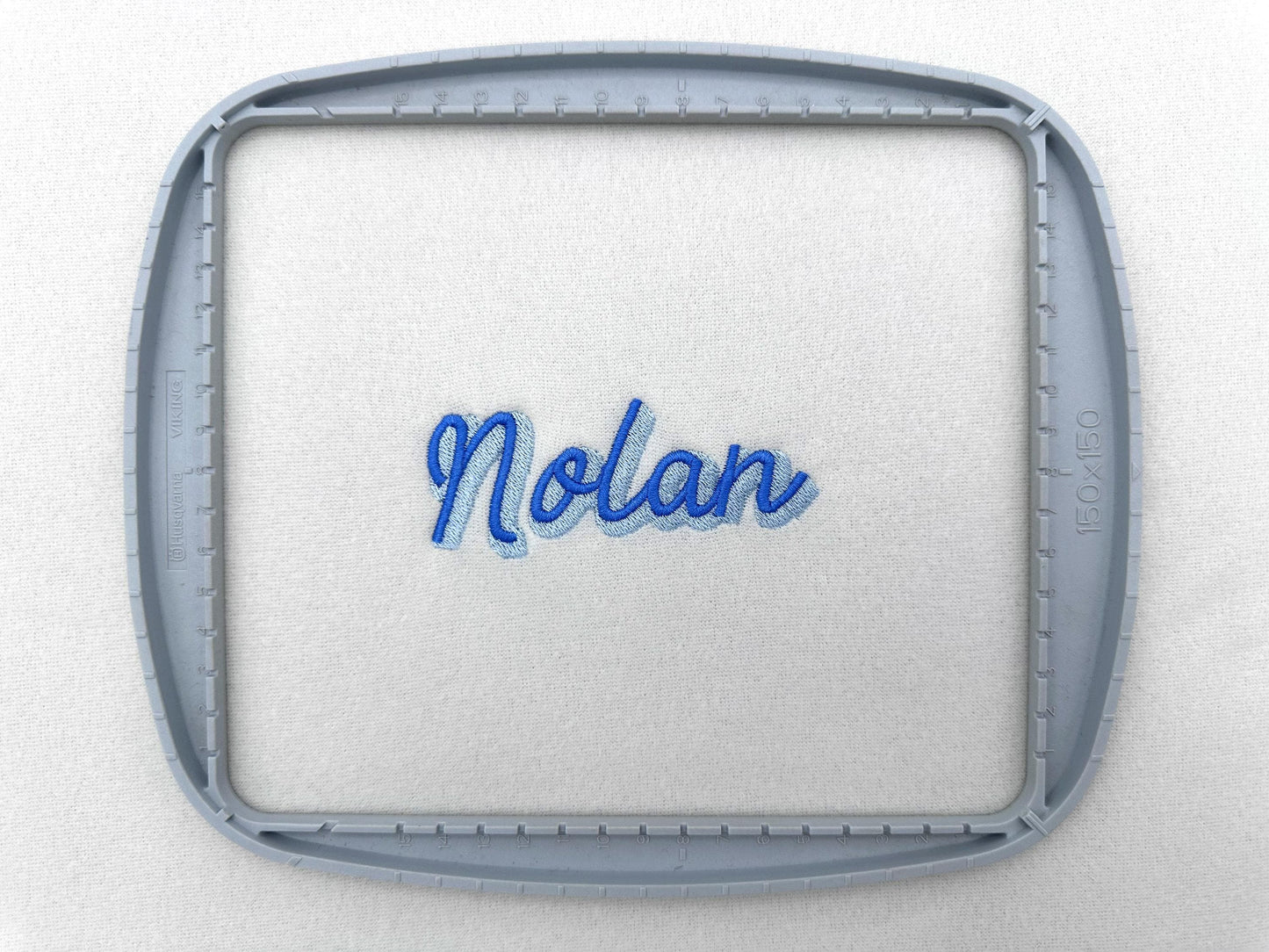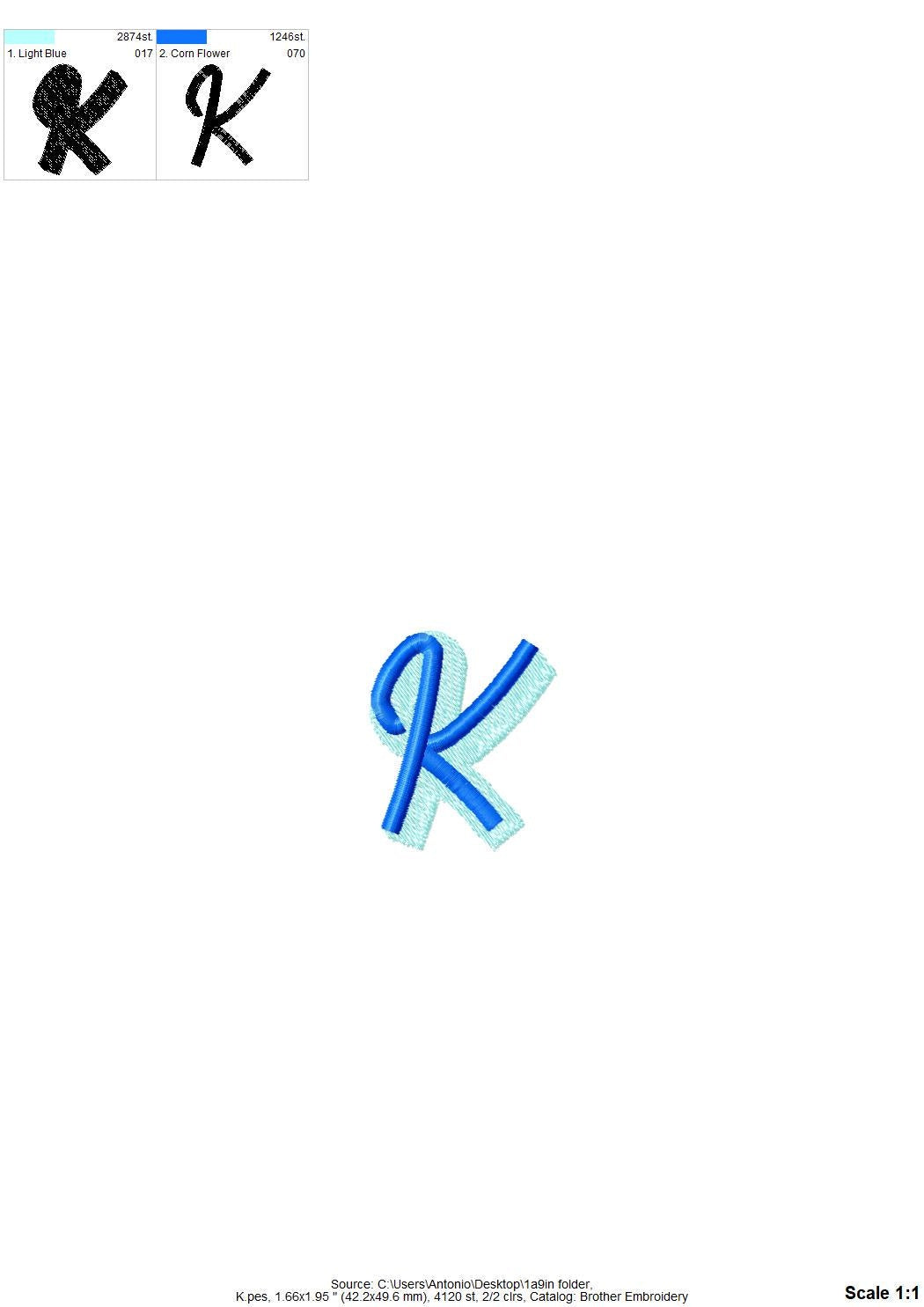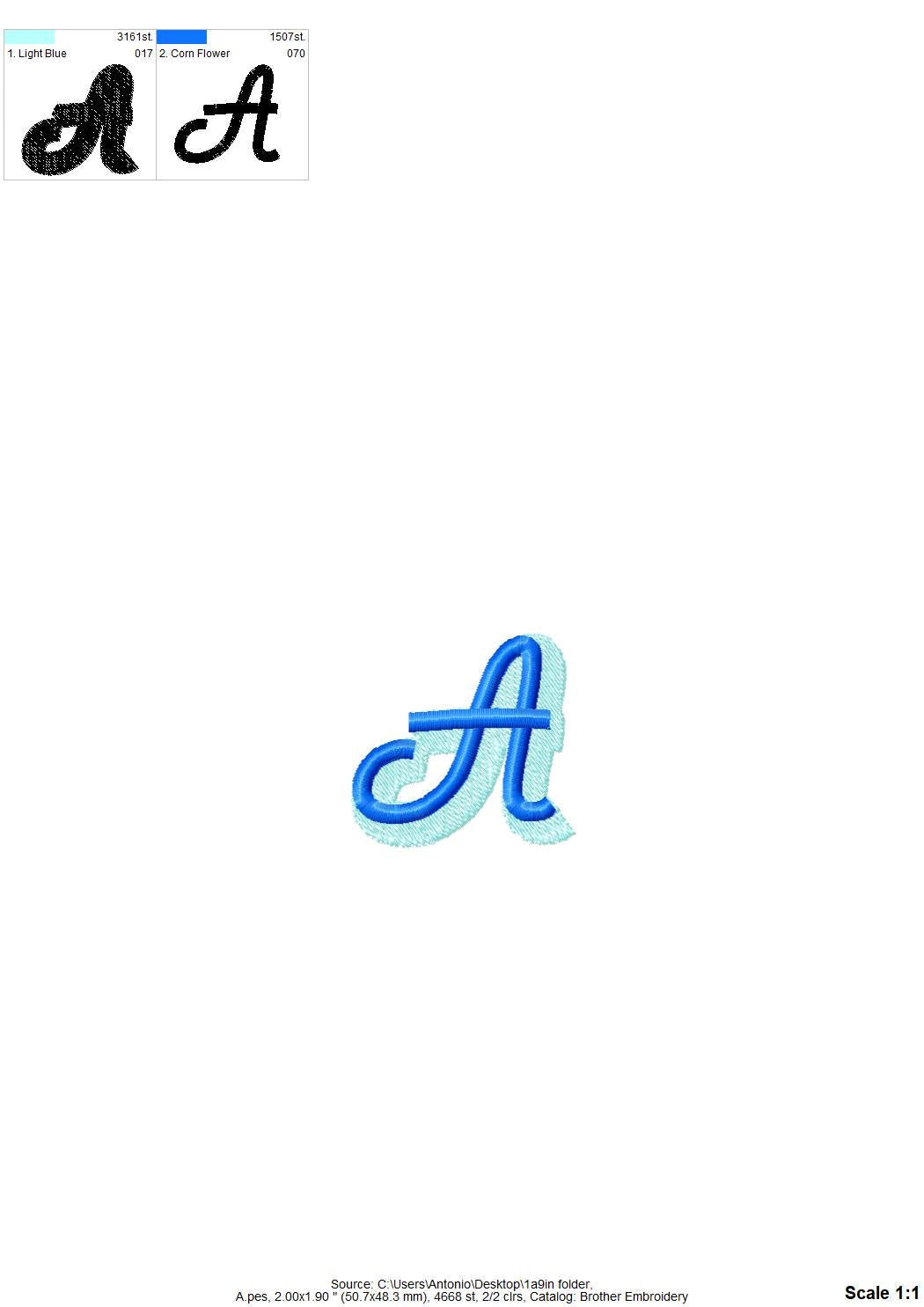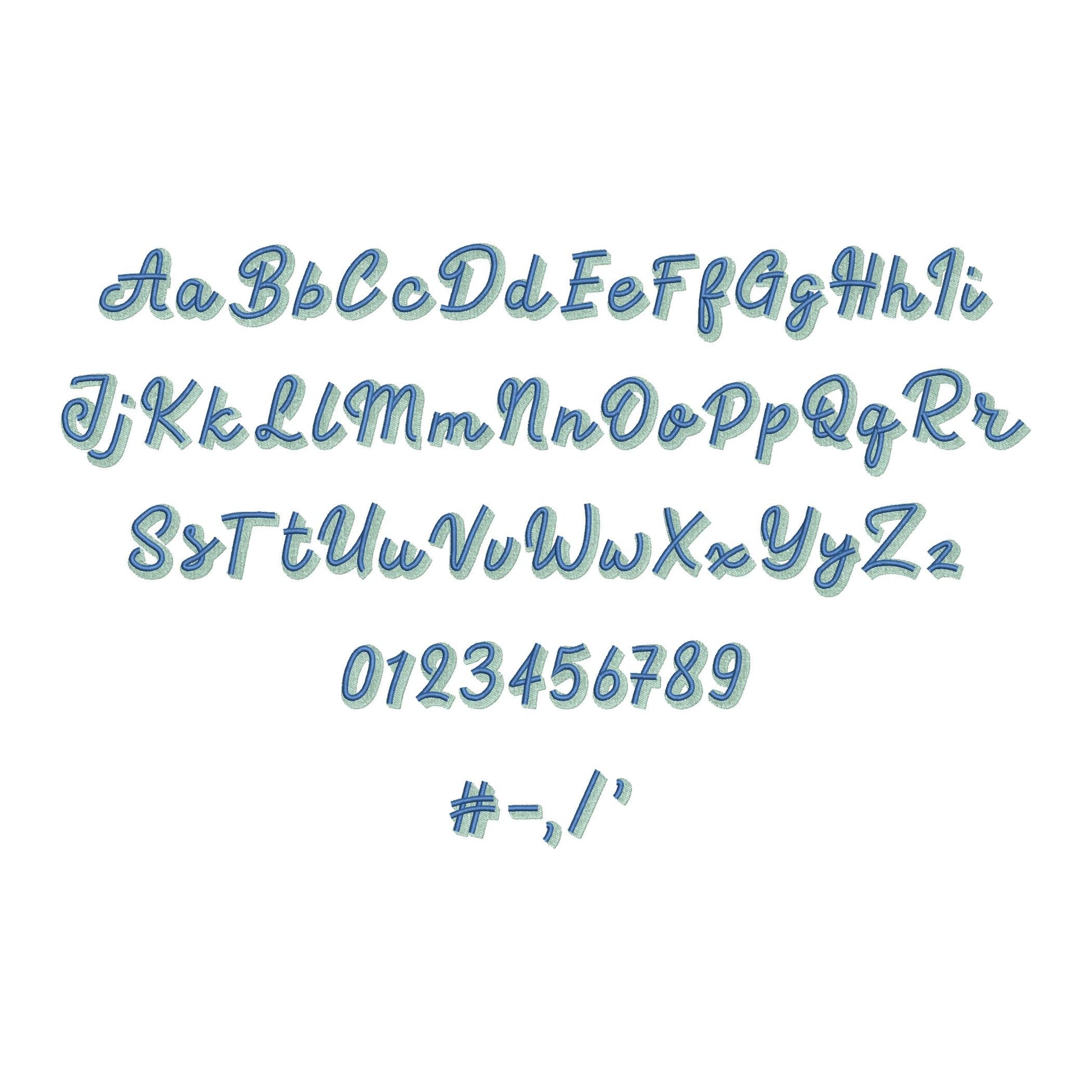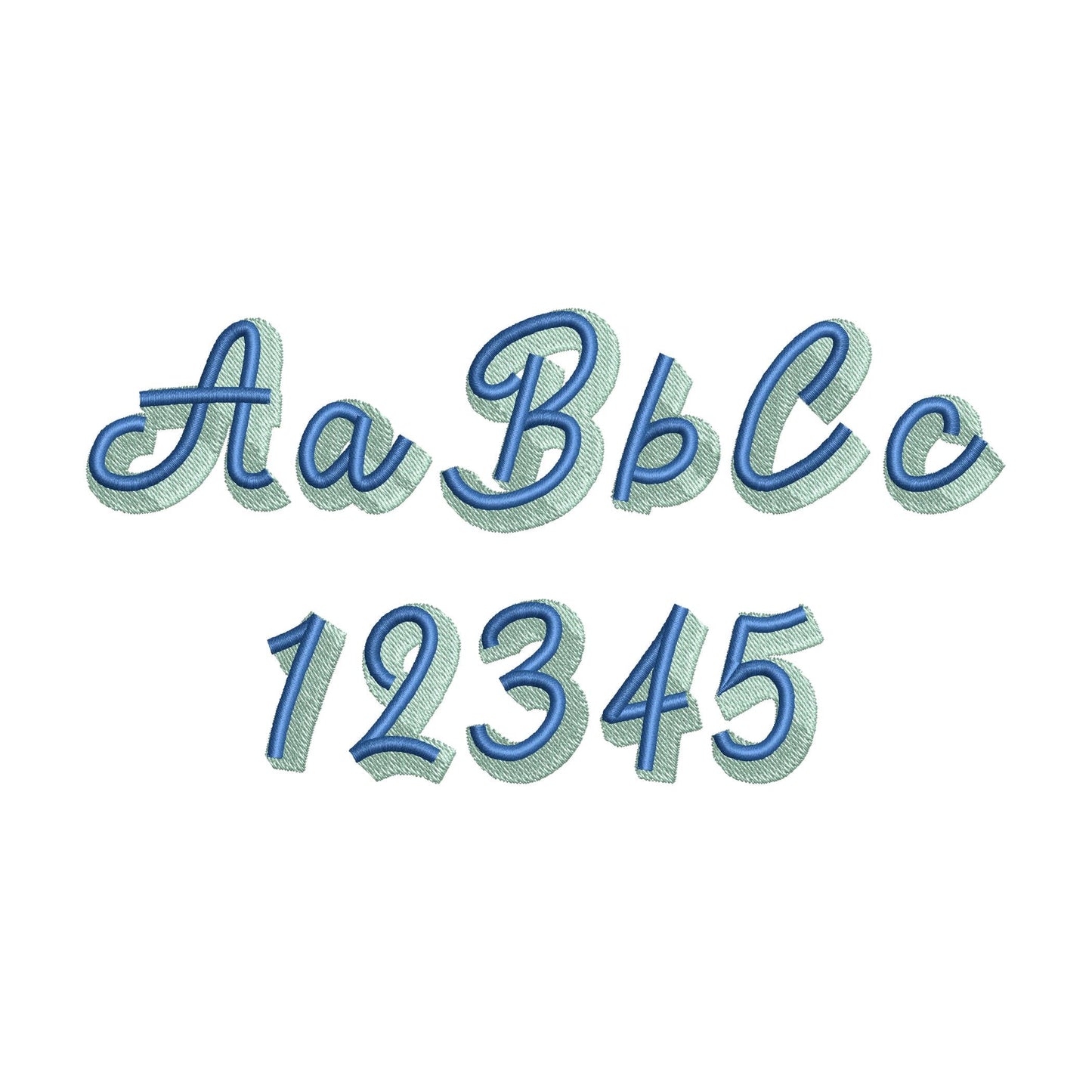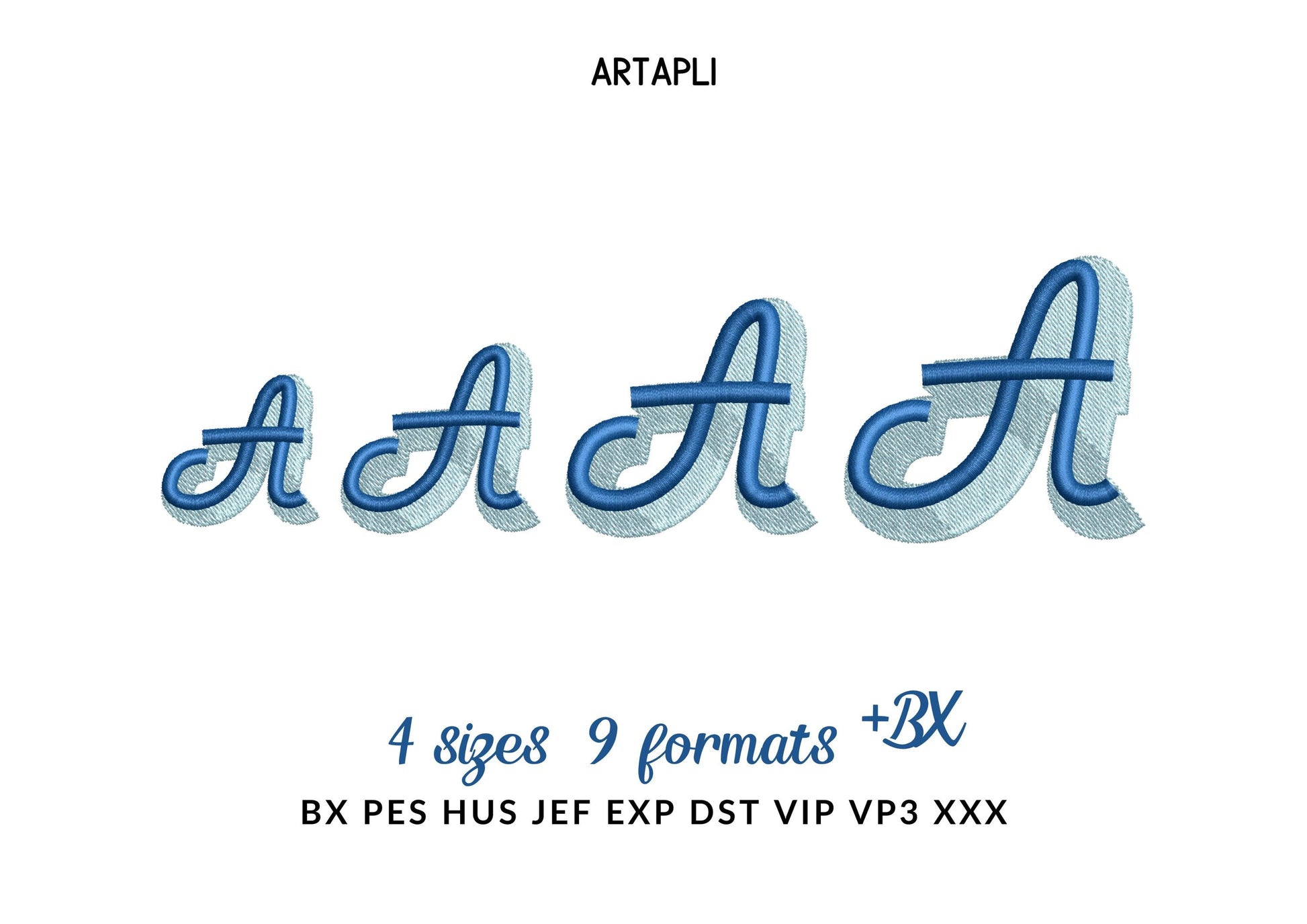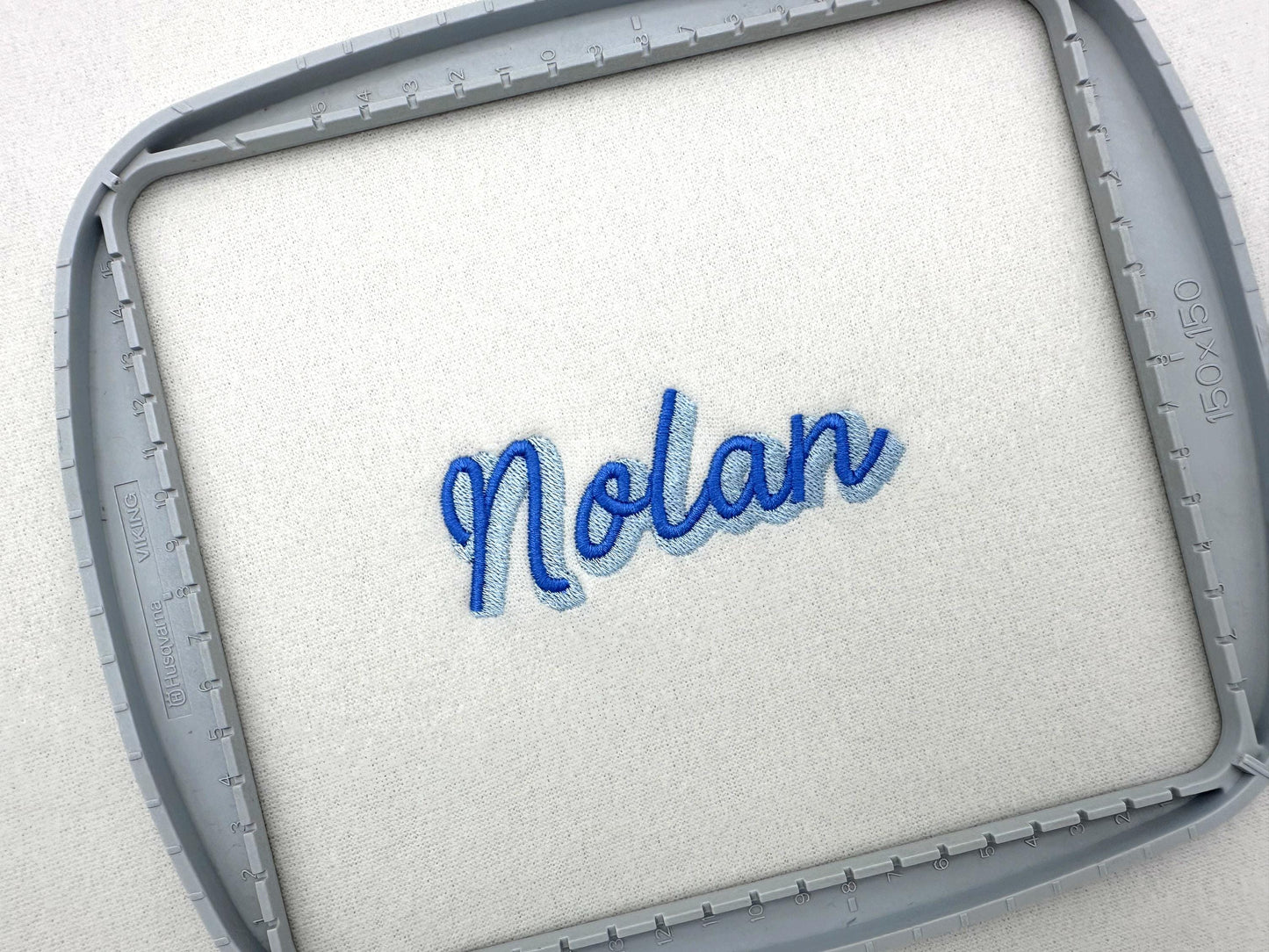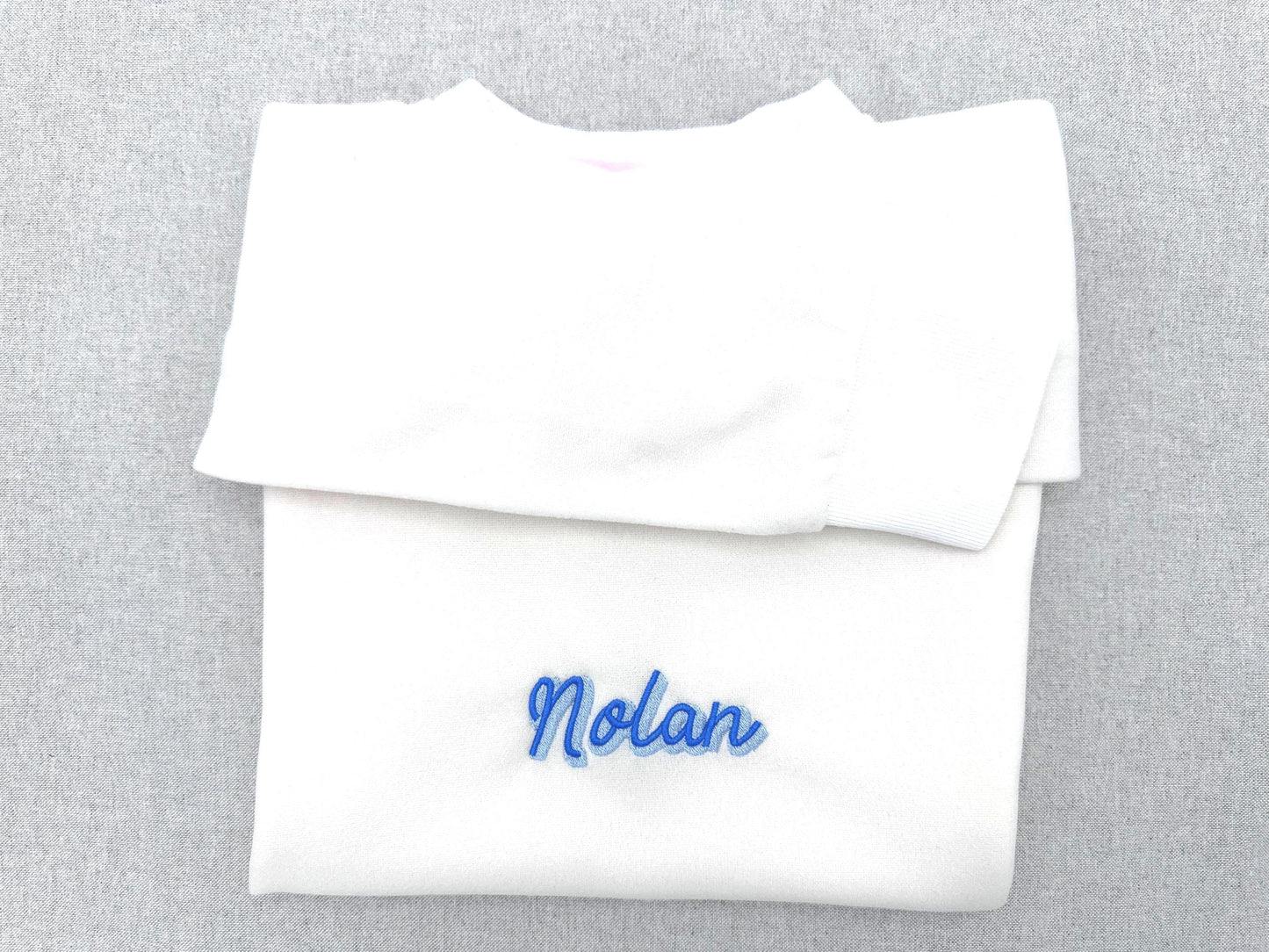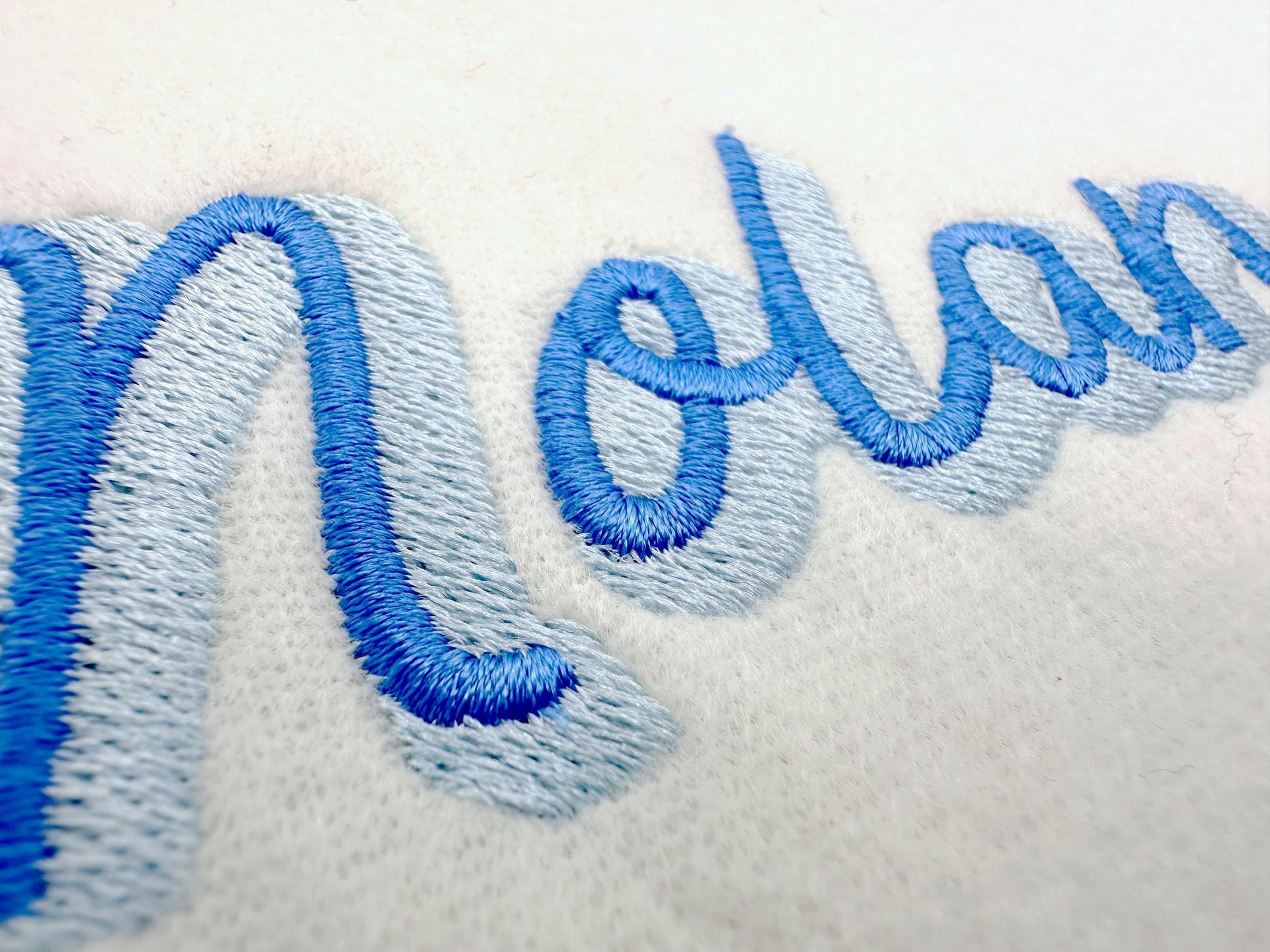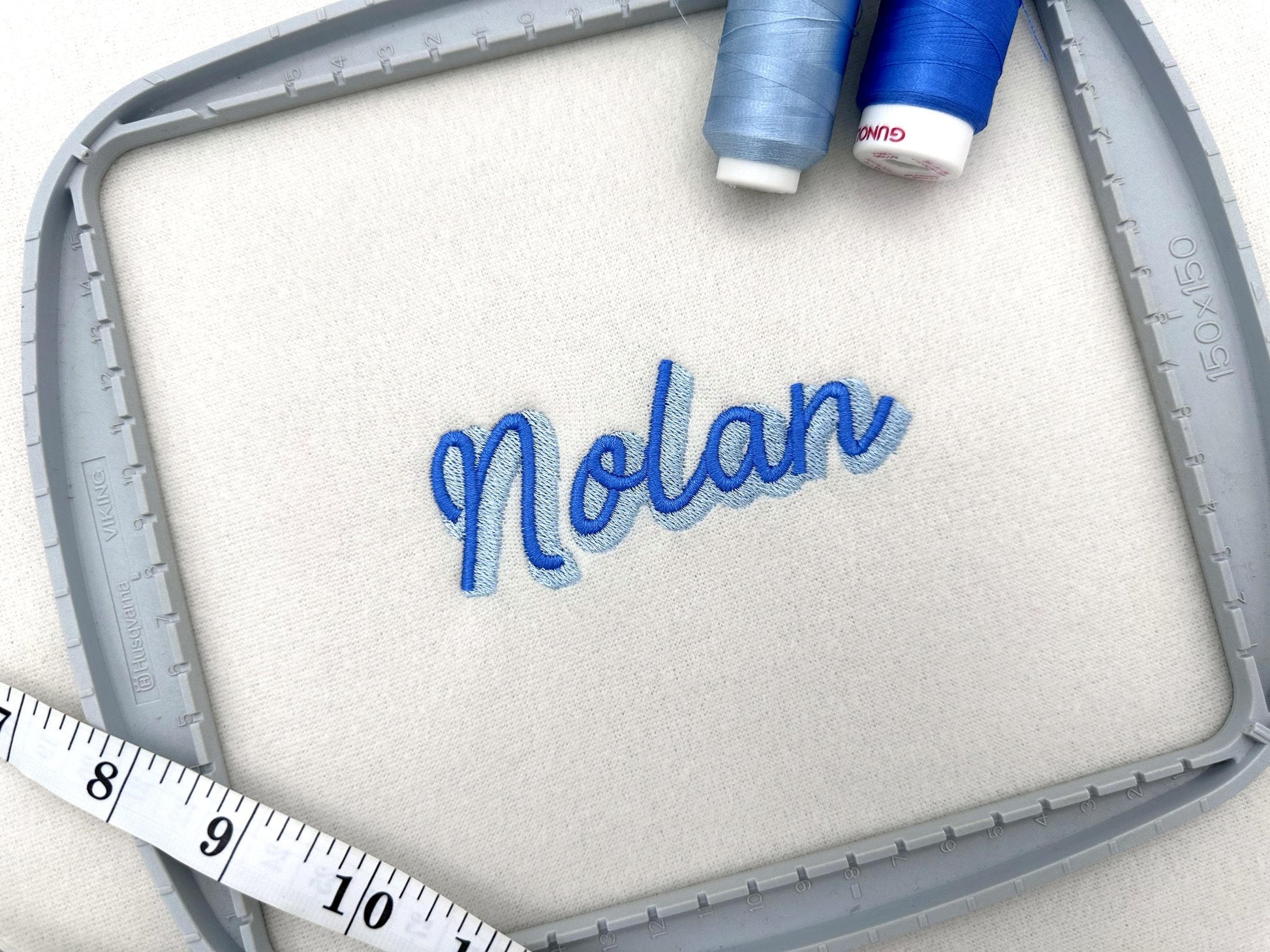
Script Soft Shadow Font
Four sizes: 1.2, 1.5, 1.9 and 2.3 inches. The alphabet has uppercase and lowercase letters A-Z, numbers 0-9 and punctuation, each with a soft two-color shadow.
- Script soft shadow alphabet, uppercase and lowercase A-Z
- Numbers 0-9 and punctuation
- 4 sizes, 1.2 to 2.3 in